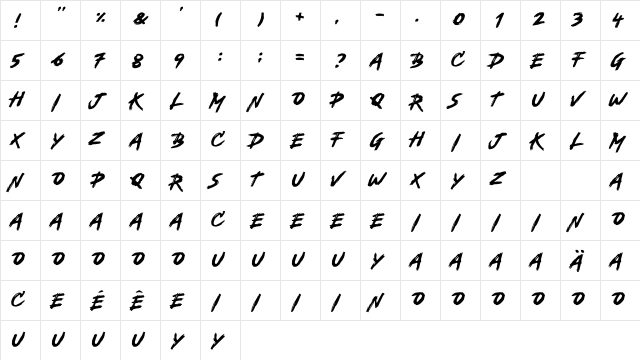
Backbones Regular
| Designer | Doli Harahap |
Design Context for Backbones Typeface
Backbones is a composed and adaptable typeface that performs quietly and consistently across a wide range of design contexts.